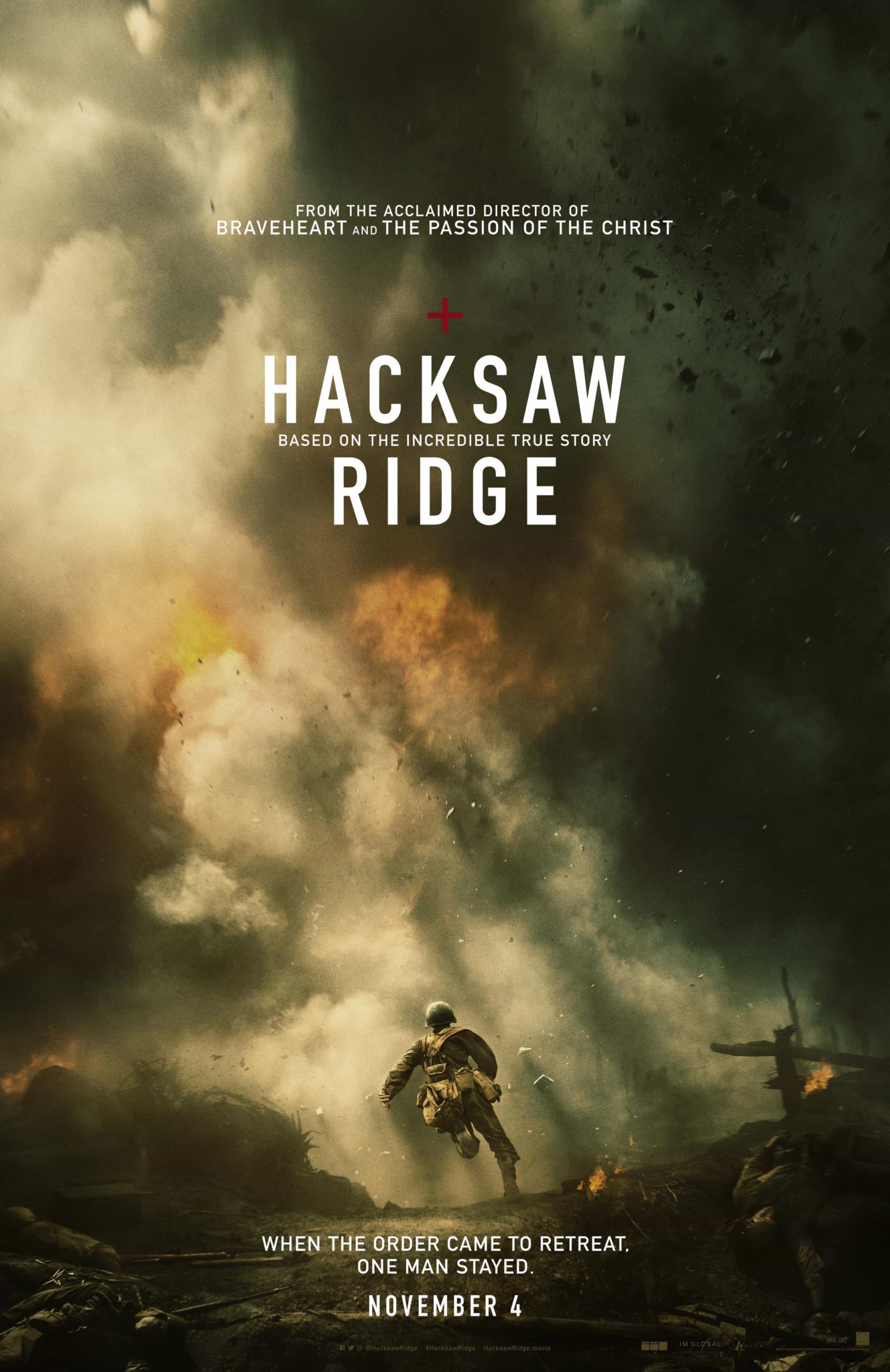
Font size 24pt 26pt 28pt 32pt 36pt 40pt 44pt 48pt 54pt 60pt 66pt 72pt. It’s one of the best headline fonts and ideal for use with film posters and titles. The font collection section is the place where you can browse, filter, custom preview and download.
Font size 24pt 26pt 28pt 32pt 36pt 40pt 44pt 48pt 54pt 60pt 66pt 72pt. It’s one of the best headline fonts and ideal for use with film posters and titles. Based on the space film, invasible is a film font that gives us a good amount of customization options thanks to its different designs of capital letters.
Classics (baskerville, futura, garamond) alongside hot new fonts (brice, moneta,novera). You can use these fonts for designing branding identity for scientific movies, gaming industry, invitations and the sport team. Black widow movie by fz fonts.